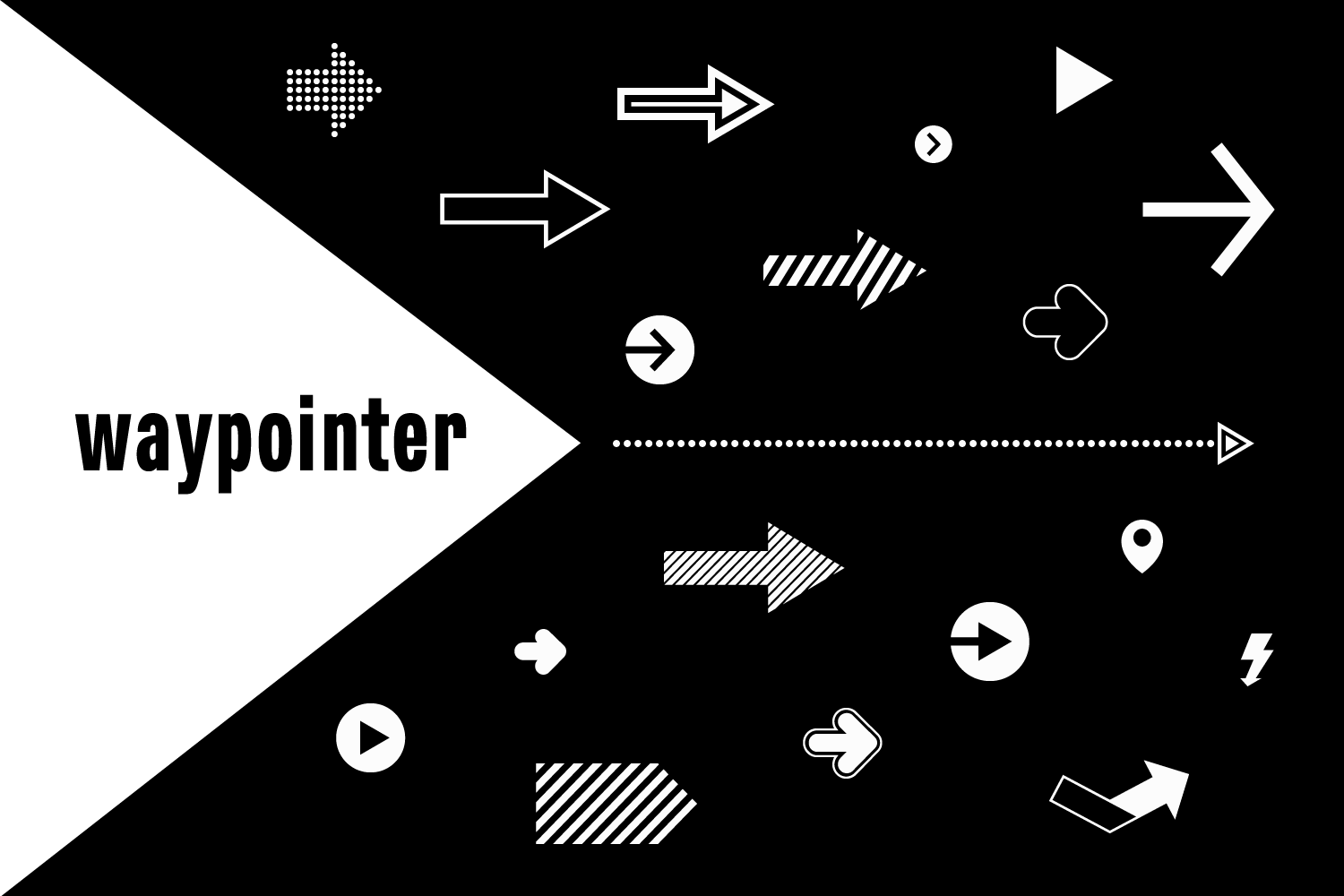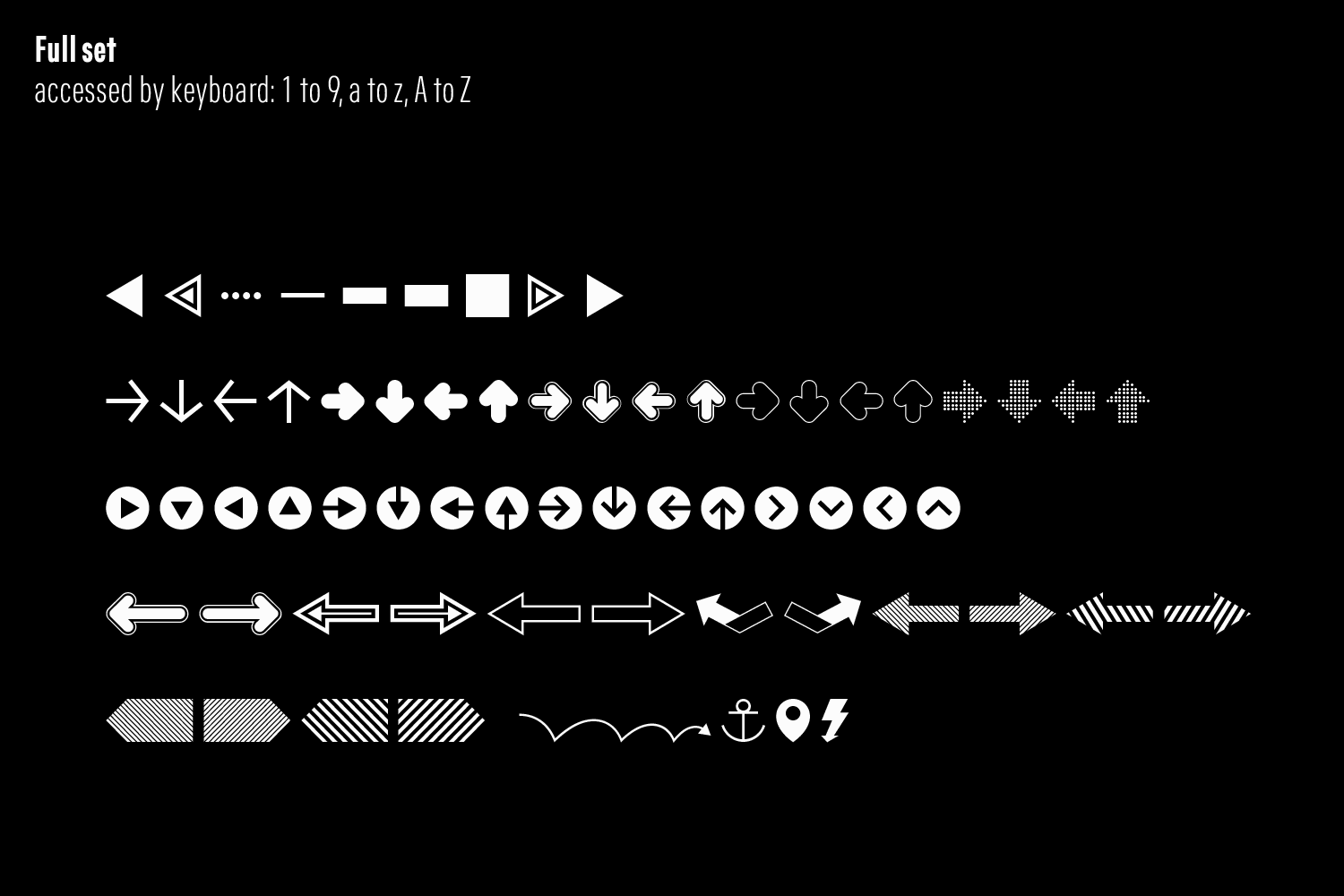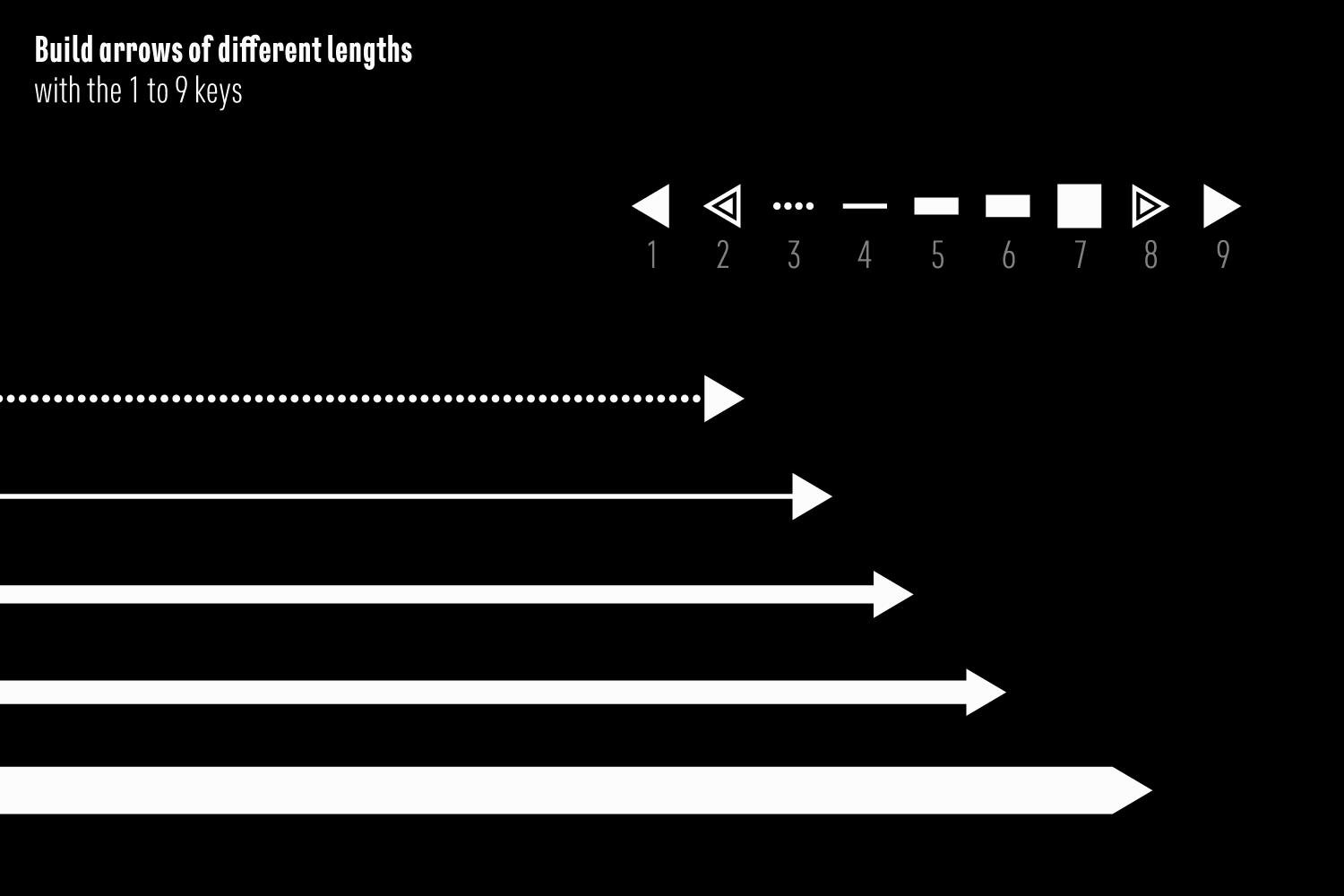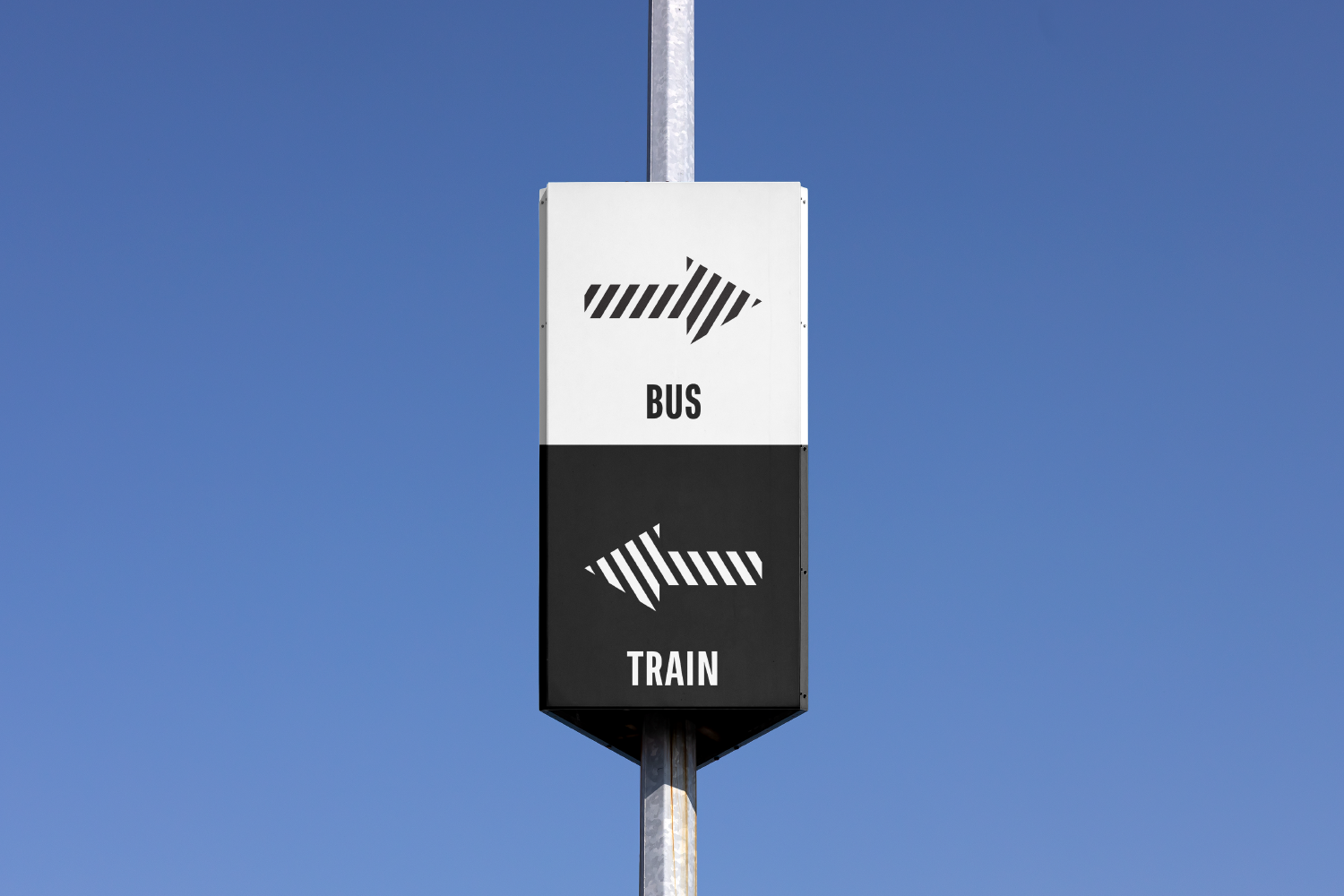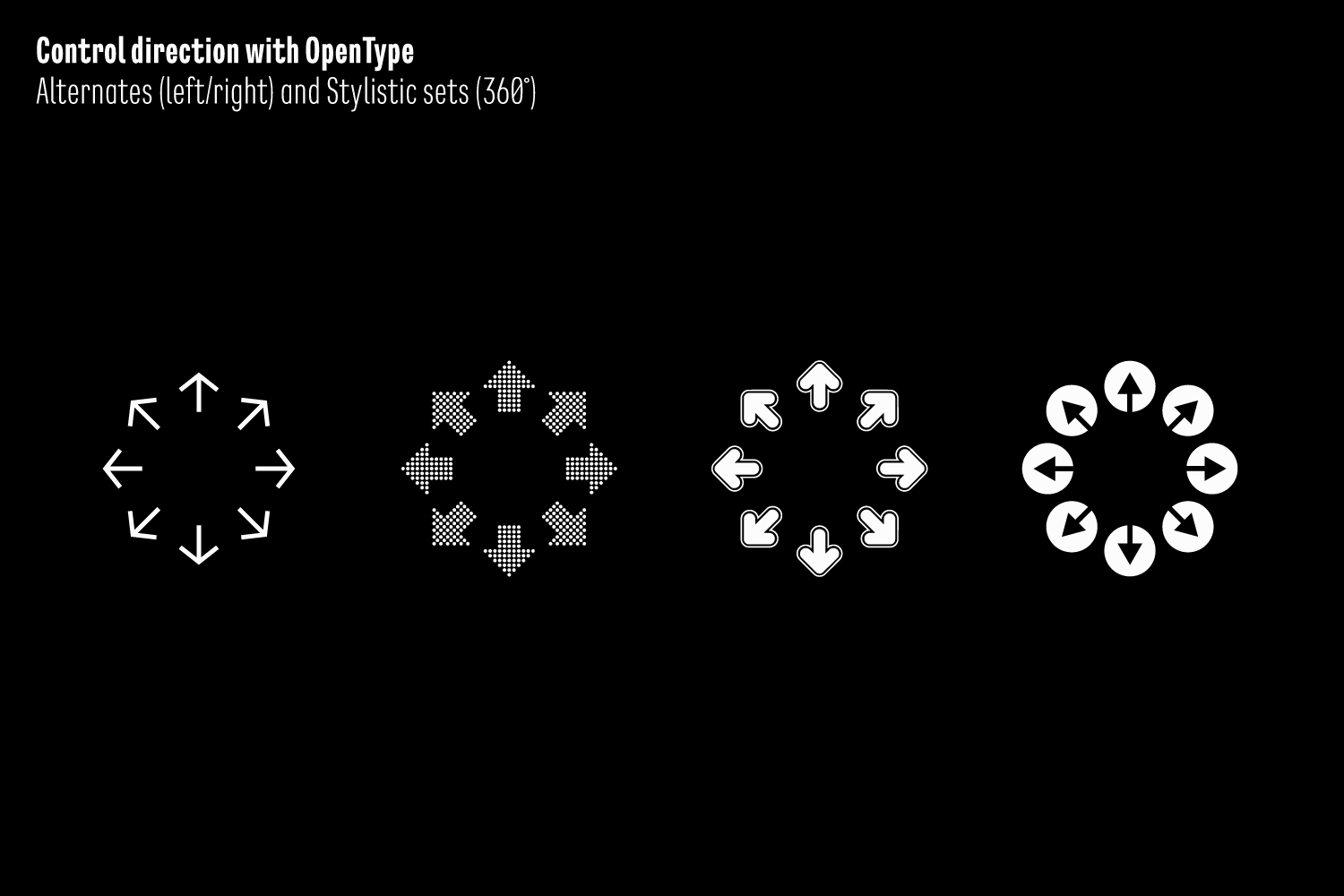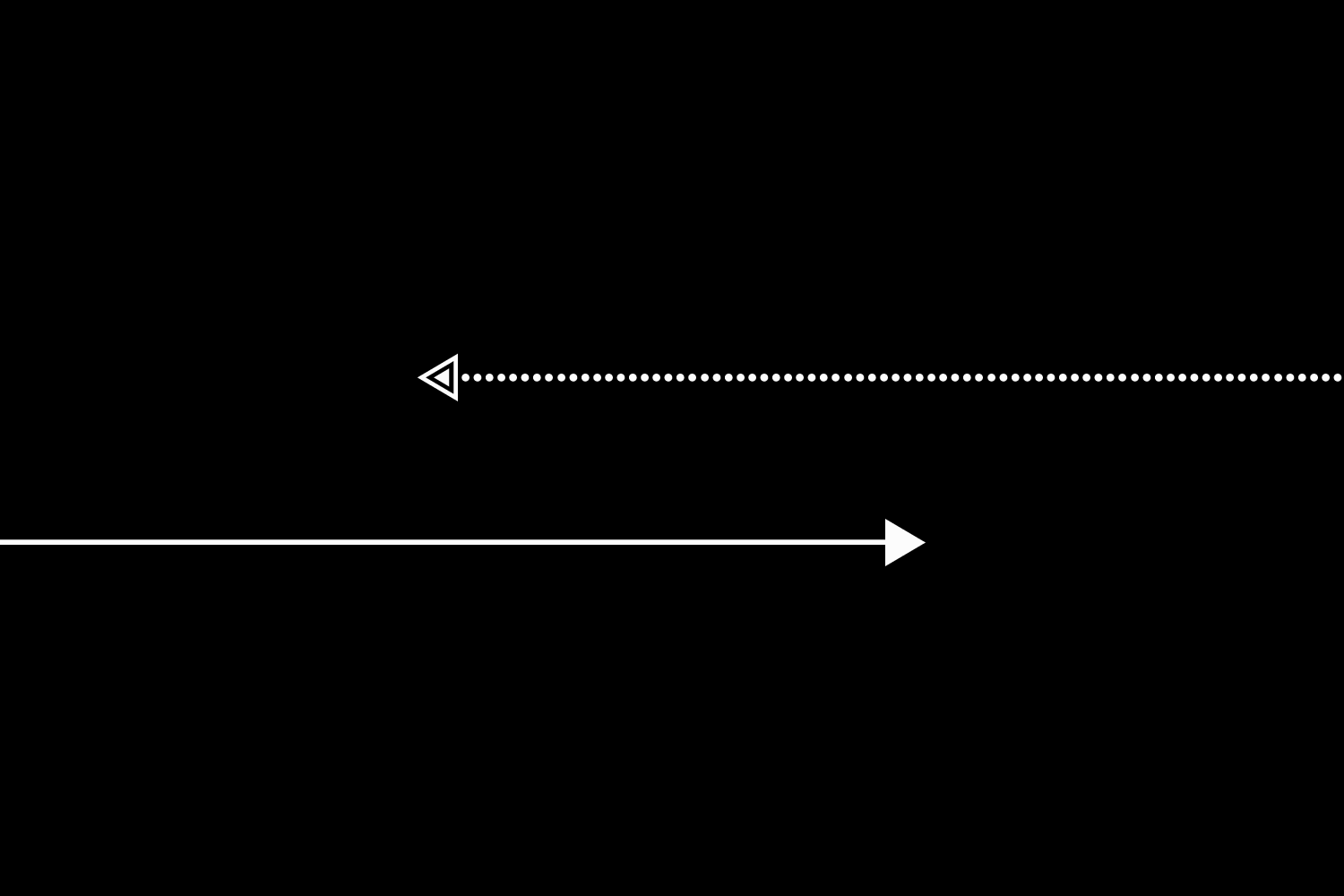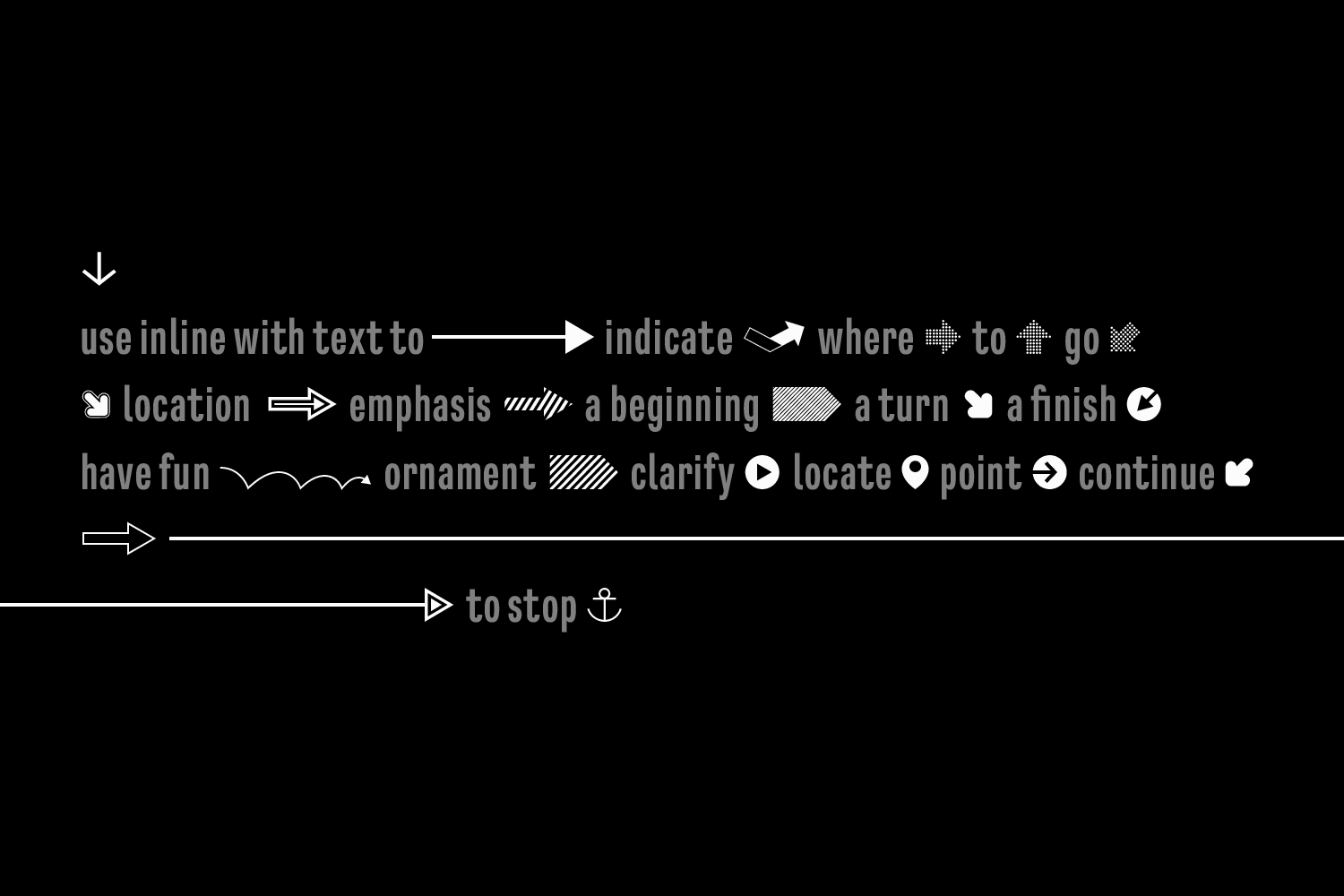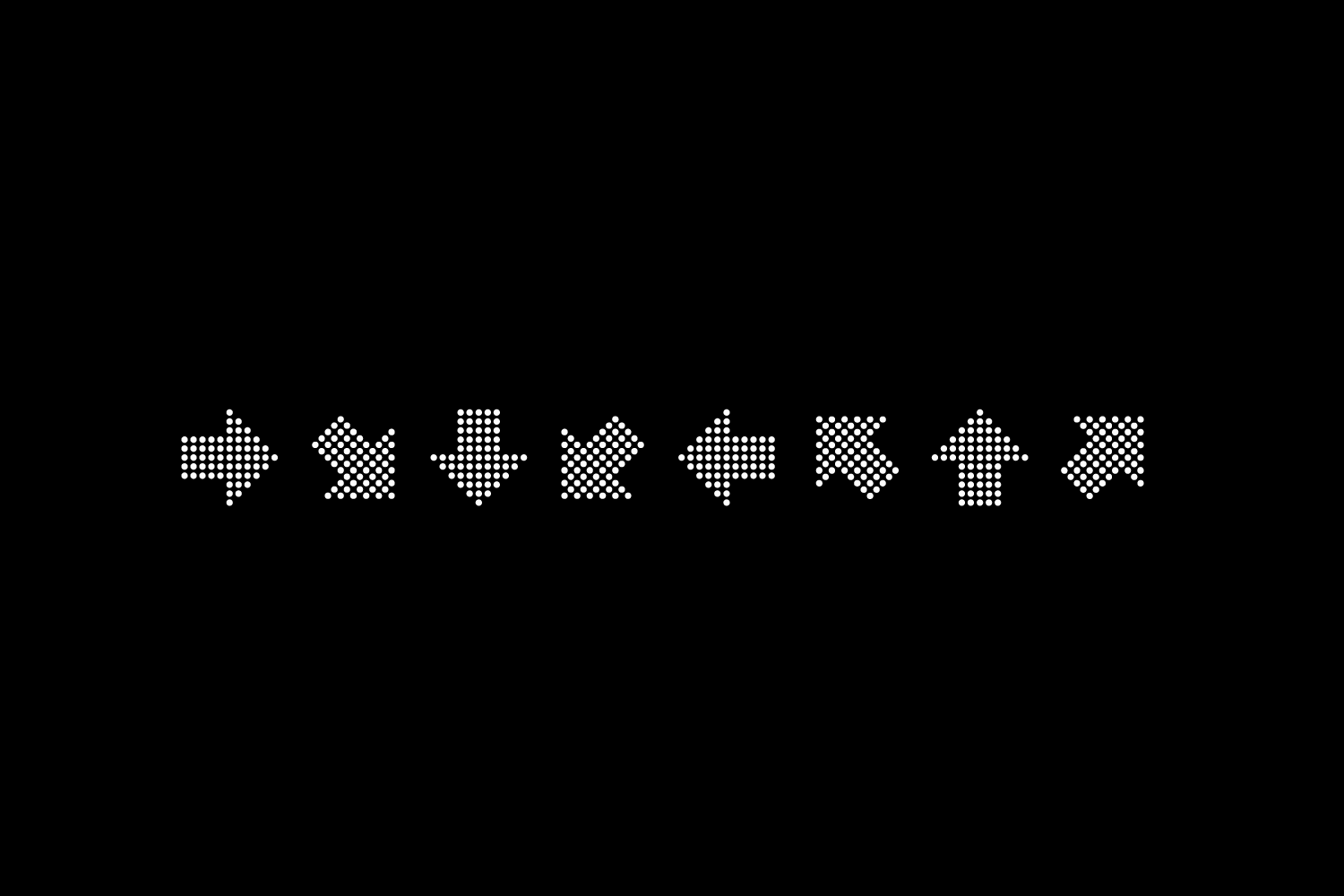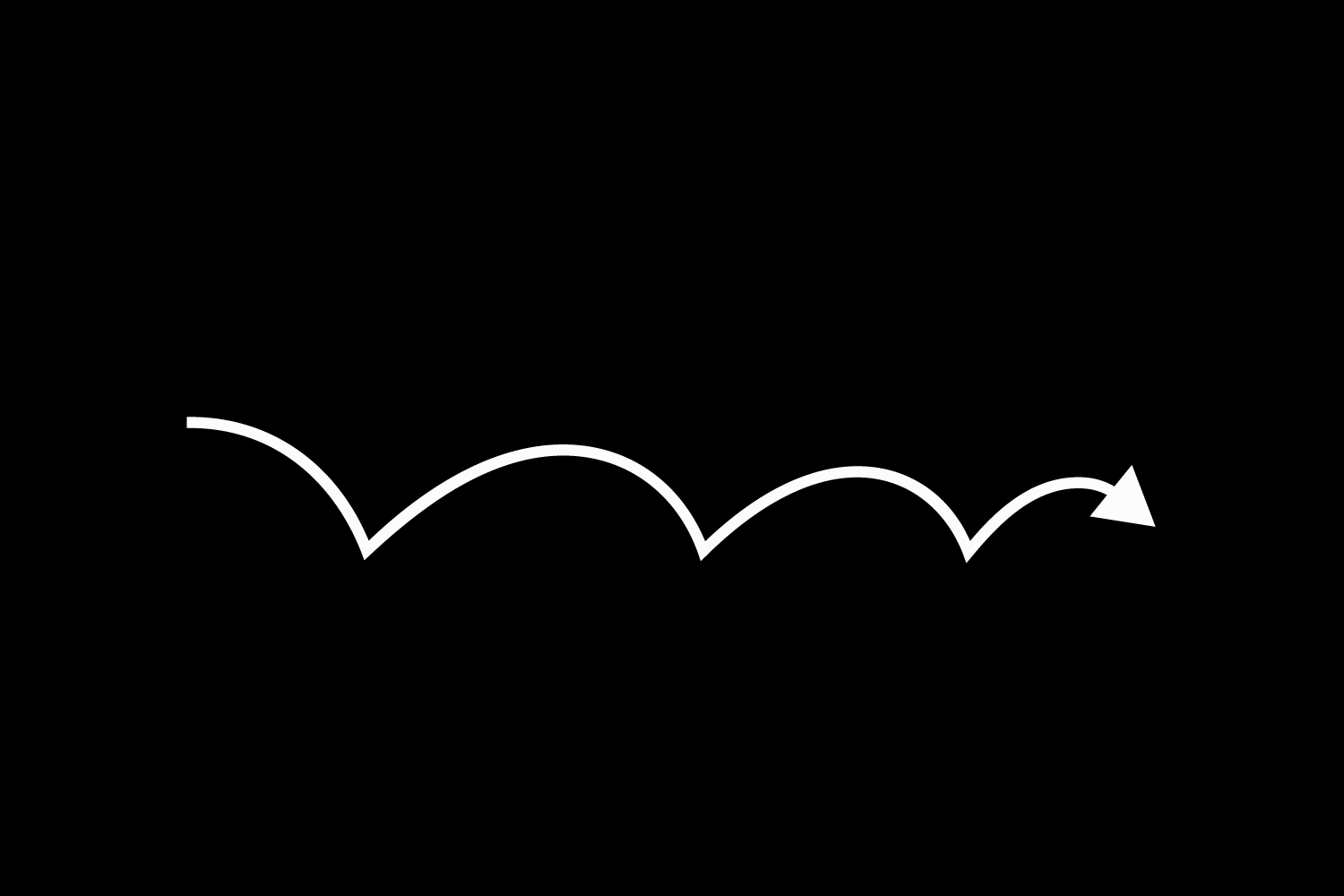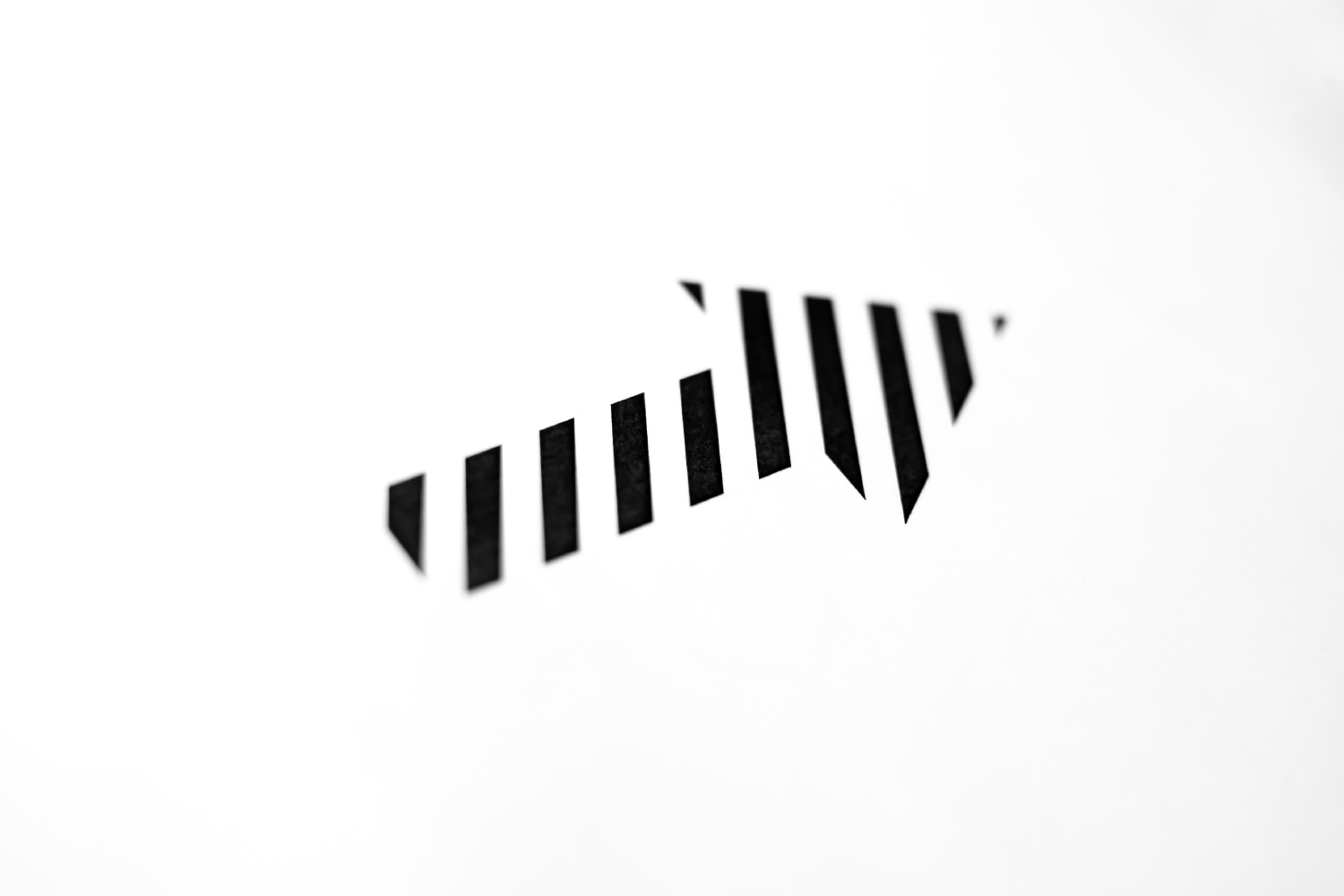
Waypointer (1 font)
From Tarallo Design
The arrows are accessed with the standard keyboard keys. Make your own arrow of any length with the 1 to 9 keys. Use uppercase (A to Z) and lowercase (a to z) for pre-made arrows that point right, left, up, or down.
Those who use OpenType will find useful features, such as stylistic sets for changing arrow directions in 360 degree angles and stylistic alternates for quick changes between pointing right and left.
It has a few extras such as a map pin, anchor, and lightning bolt. These are included and accessed with the comma, period, and zero keys.